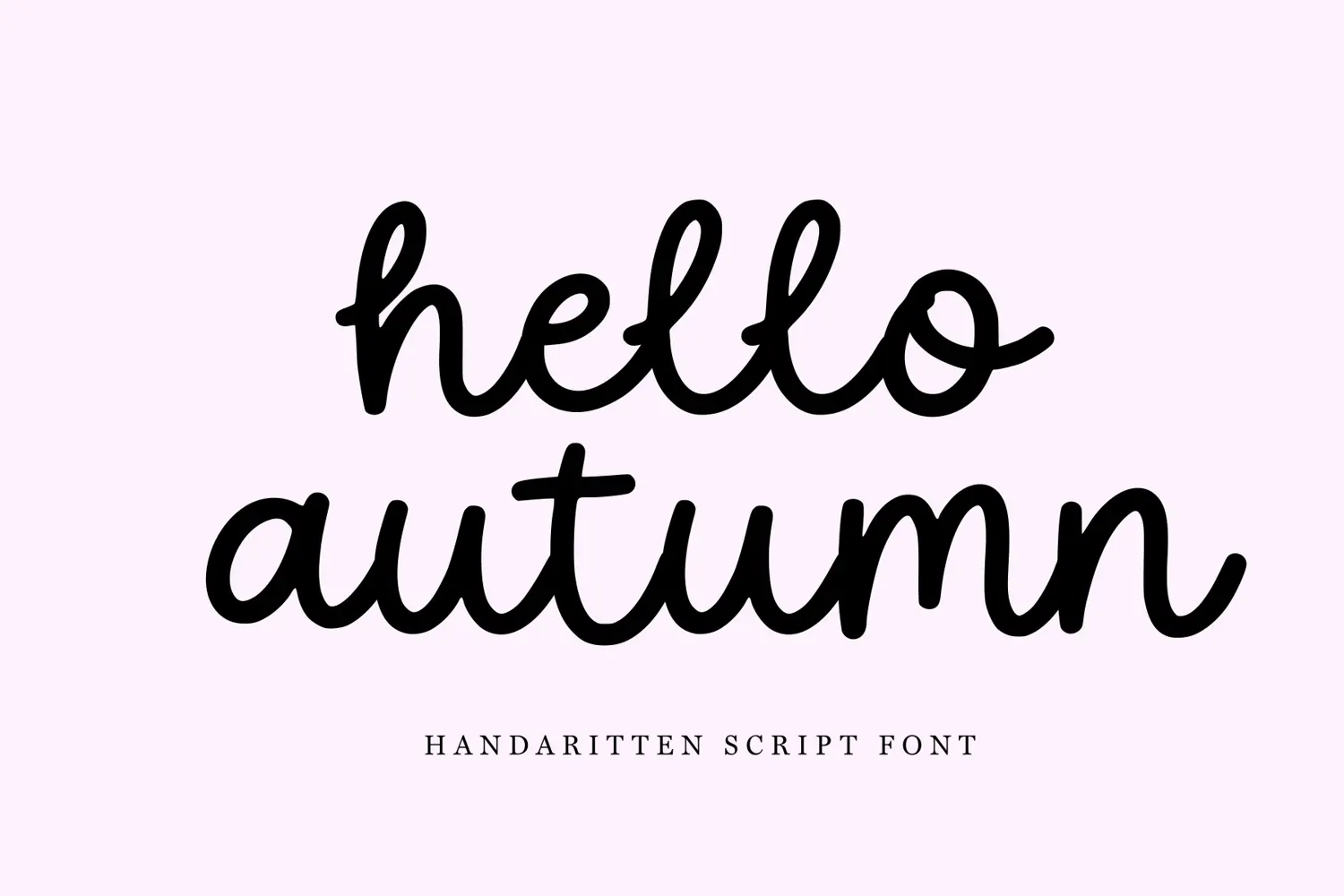
hello autumn - Handwritten Script Font
hello autumn is a playful, warm, and charming handwritten script font. With naturally flowing strokes and soft, bouncy curves, this font brings a feminine touch to any design project.
Sweet Garden is perfect for:
• Logos & branding
• Wedding invitations & greeting cards
• Product packaging
• Quotes & lettering art
• T-shirt & merchandise designs
• Social media posts
• Handmade product labels